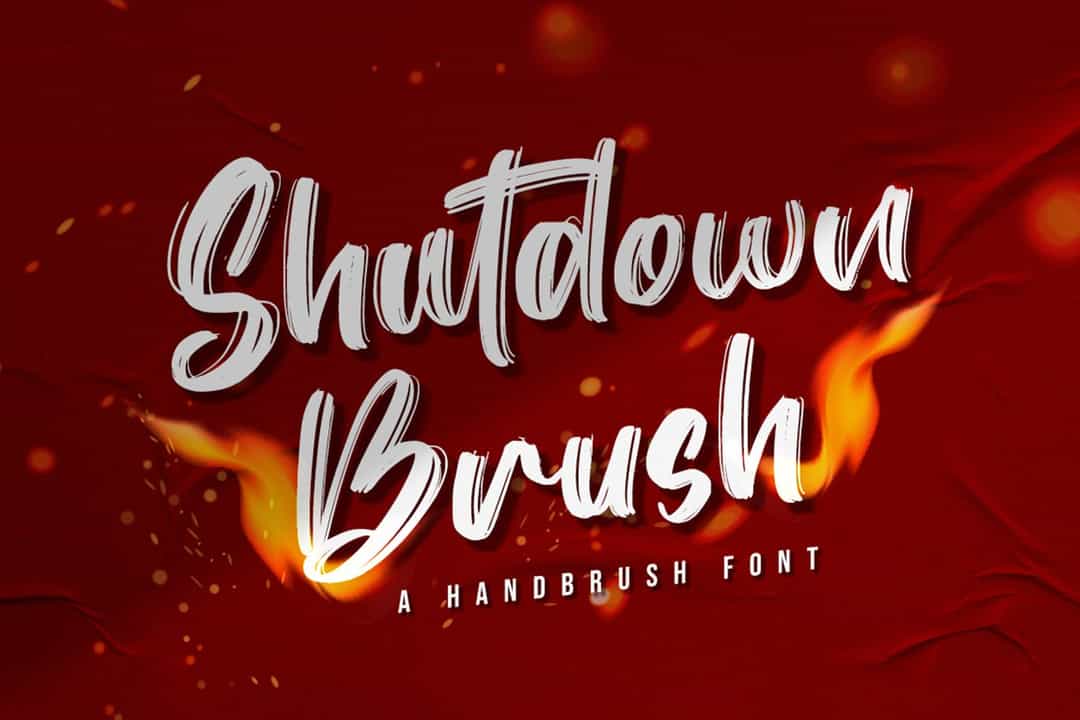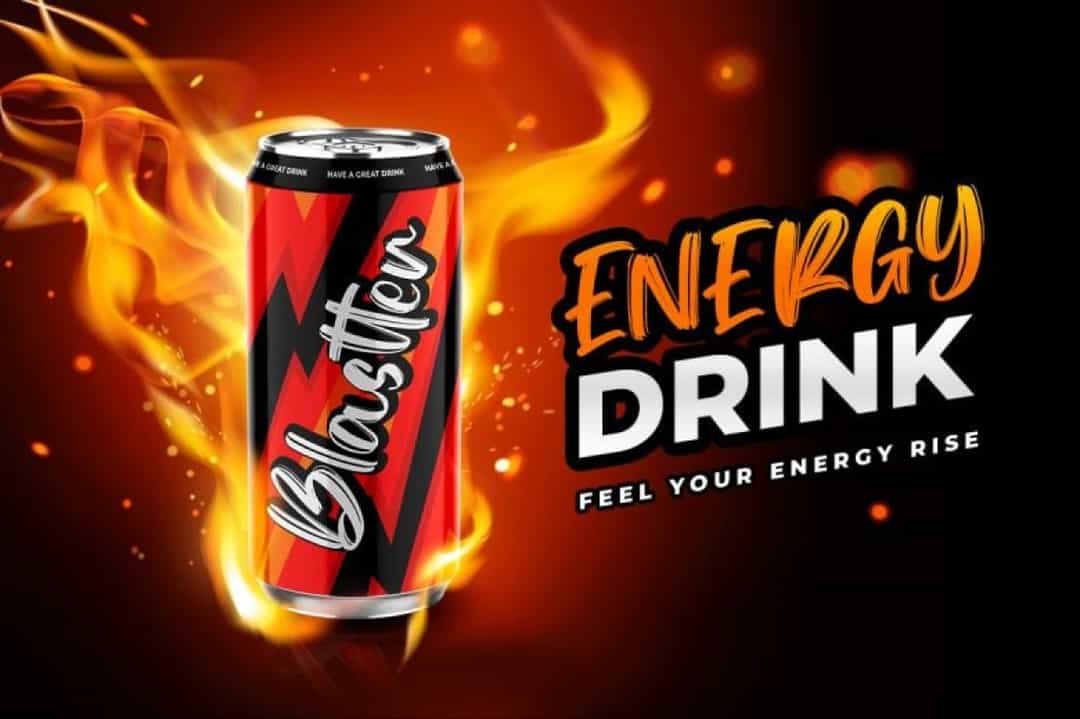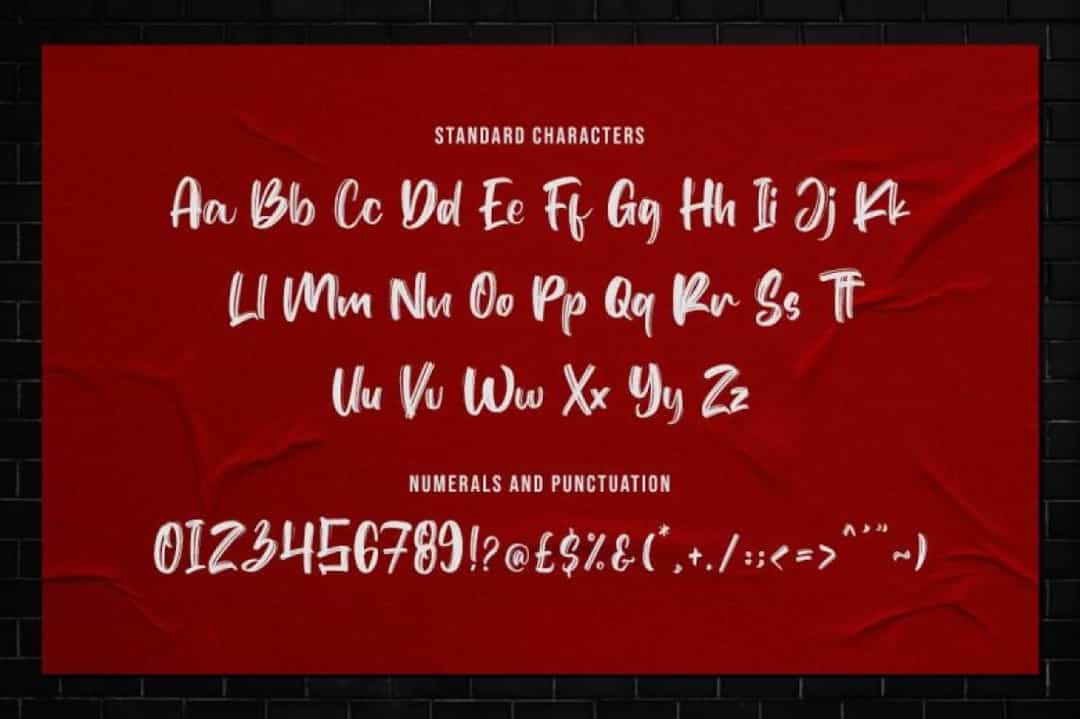
Shutdown Brush is an eye-catching brush script font ideal for contemporary design projects. Featuring an aggressive edge and excellent display capabilities on digital mediums, this font makes an eye-catching statement when used for digital display projects.